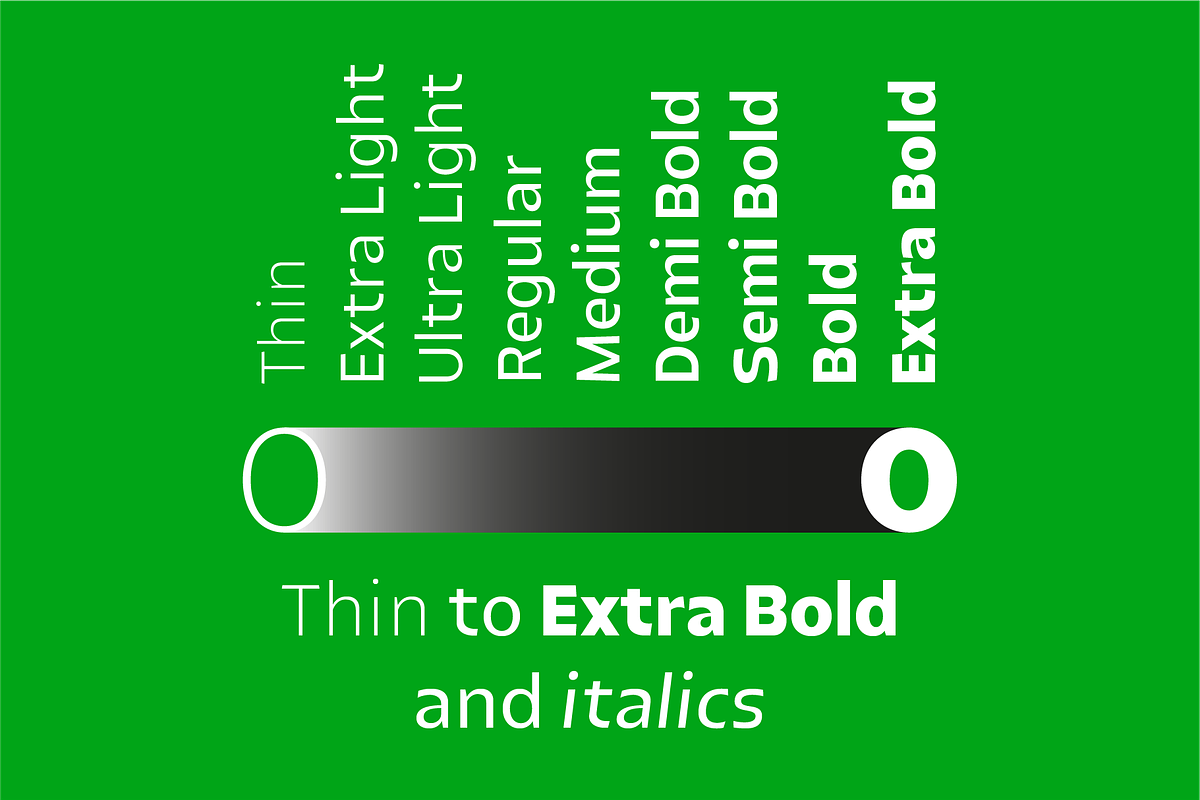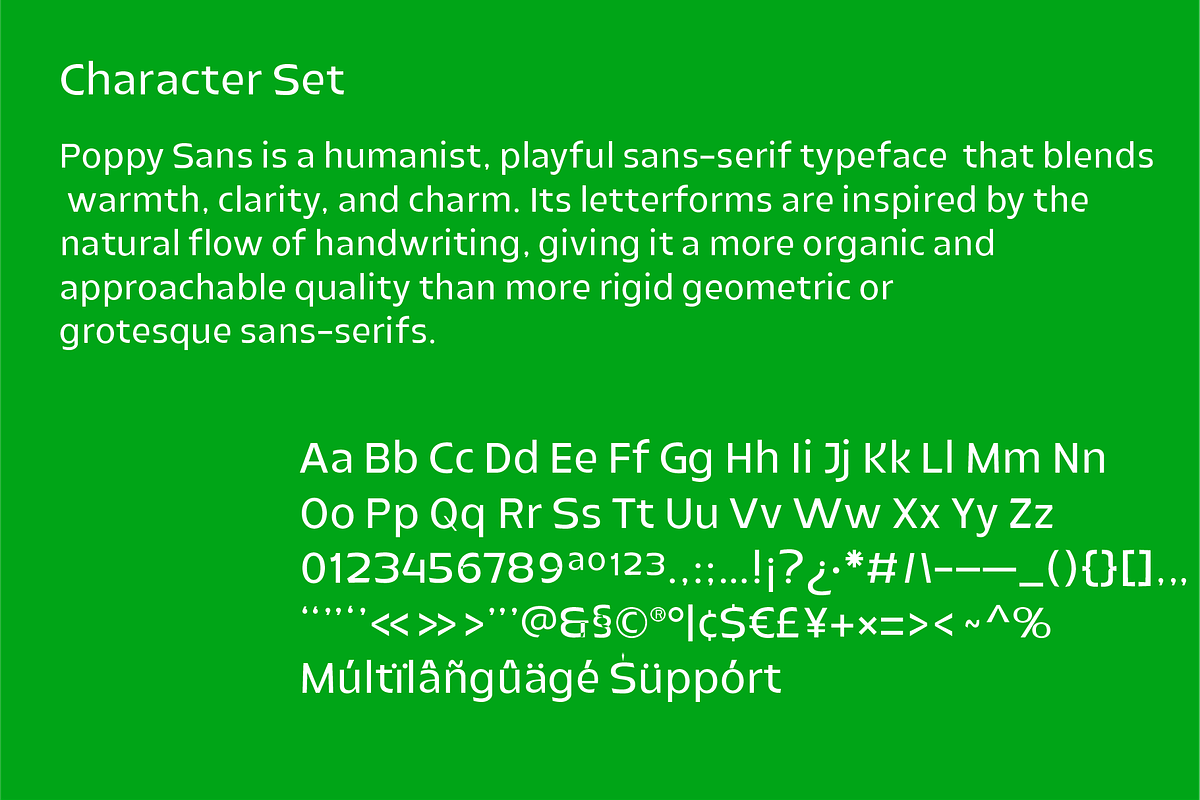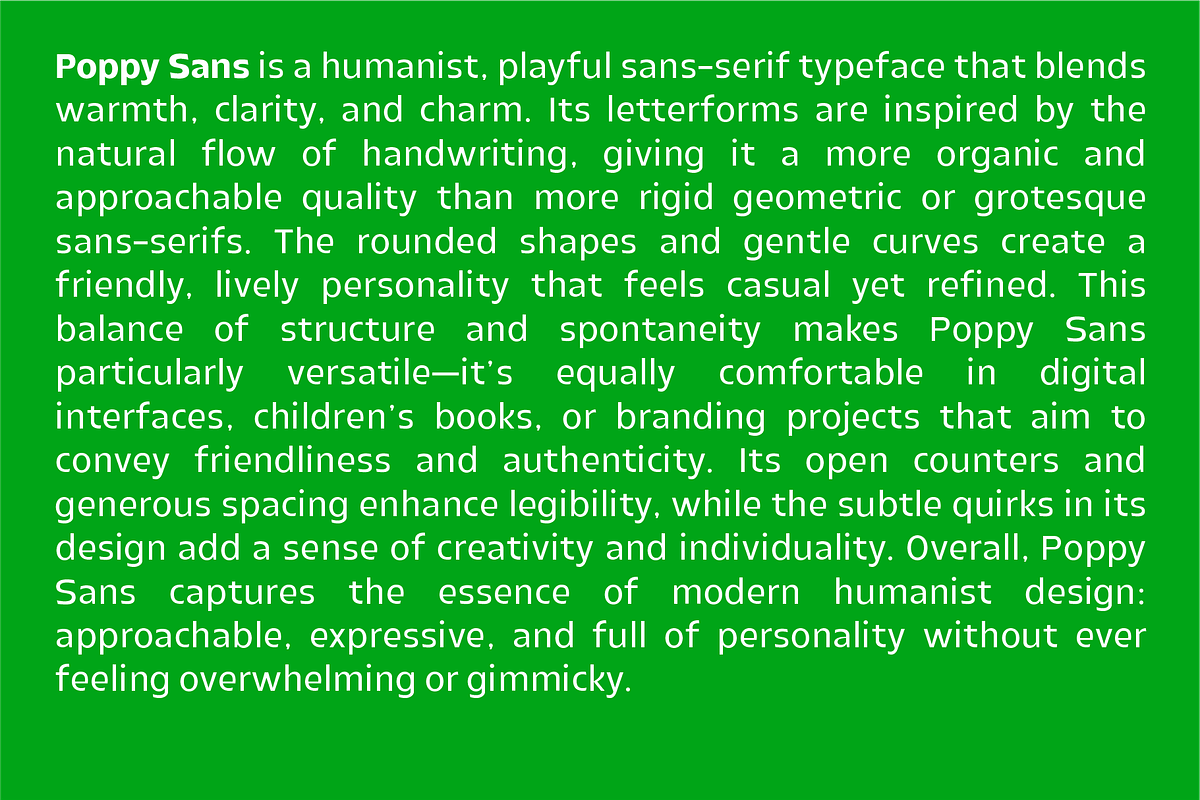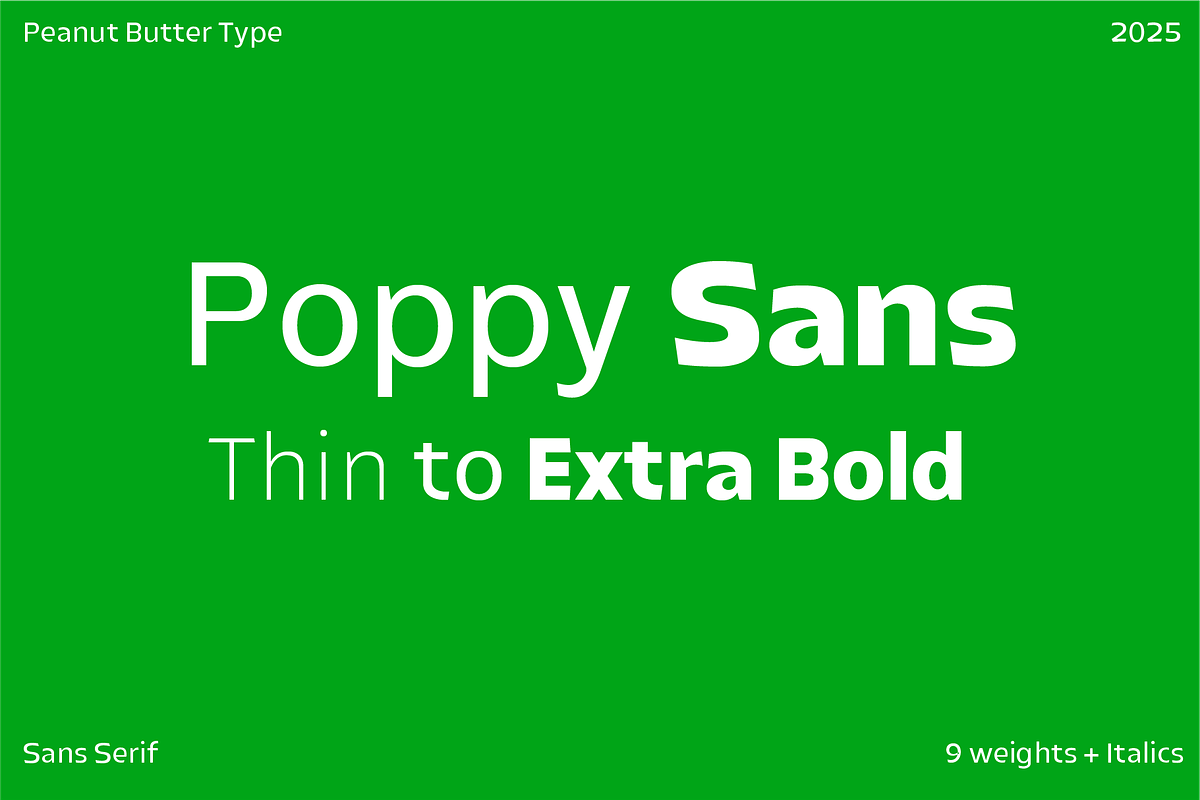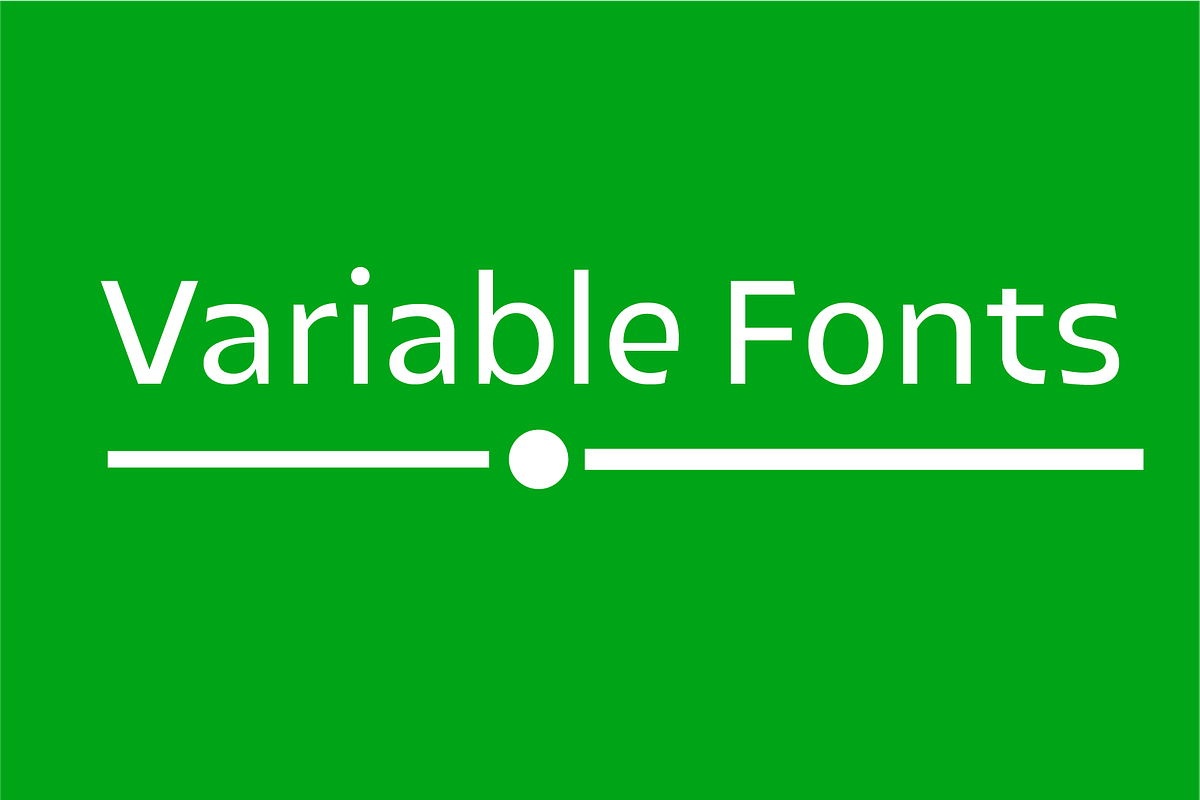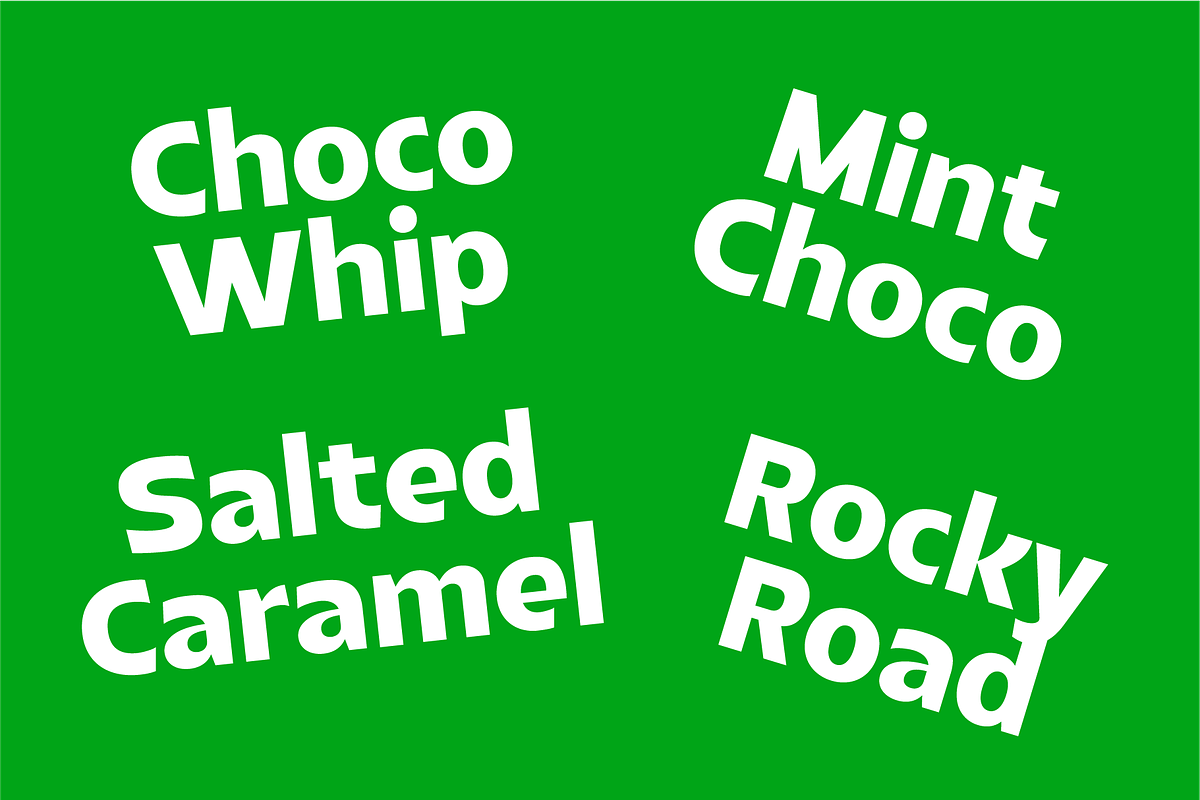
Poppy Playful Humanist Sans Serif
Poppy Sans is a humanist, playful sans-serif typeface that blends warmth, clarity, and charm. Its letterforms are inspired by the natural flow of handwriting, giving it a more organic and approachable quality than more rigid geometric or grotesque sans-serifs. The rounded shapes and gentle curves create a friendly, lively personality that feels casual yet refined. This balance of structure and spontaneity makes Poppy Sans particularly versatile—it’s equally comfortable in digital interfaces, children’s books, or branding projects that aim to convey friendliness and authenticity. Its open counters and generous spacing enhance legibility, while the subtle quirks in its design add a sense of creativity and individuality. Overall, Poppy Sans captures the essence of modern humanist design: approachable, expressive, and full of personality without ever feeling overwhelming or gimmicky. Files Included: